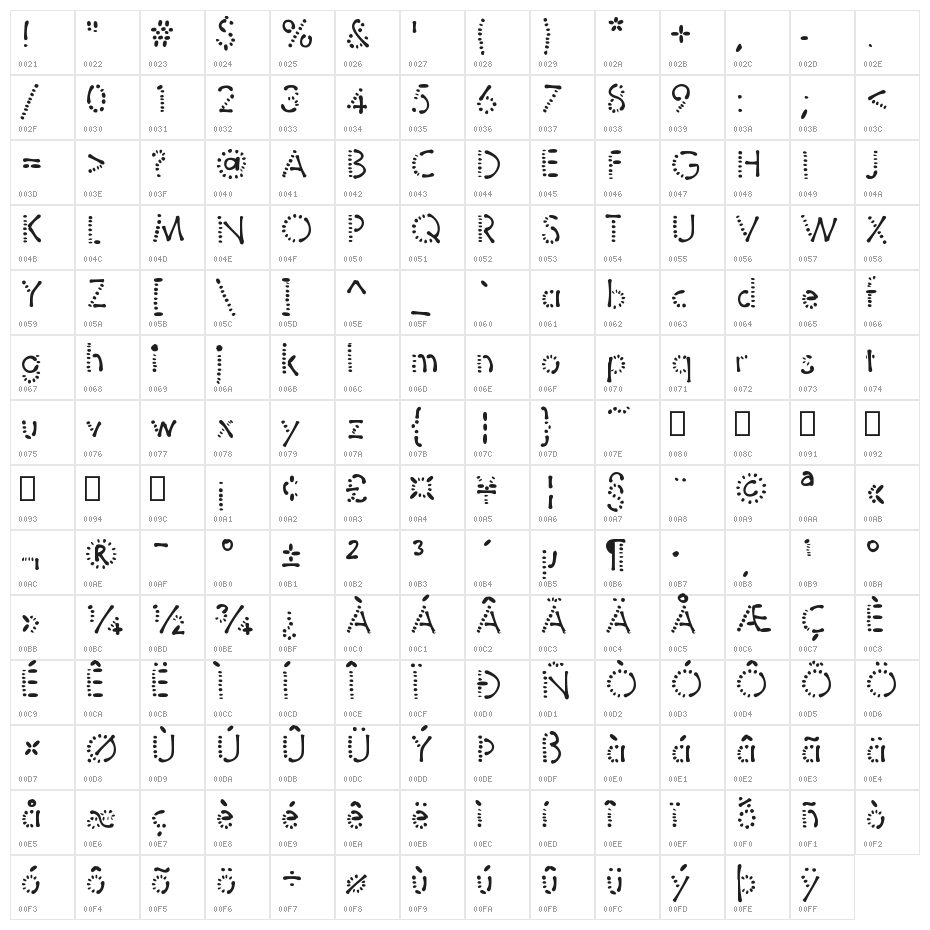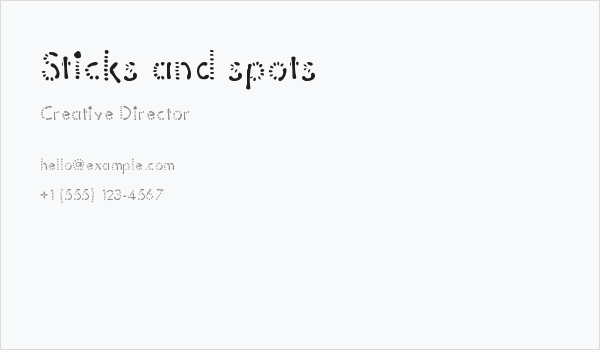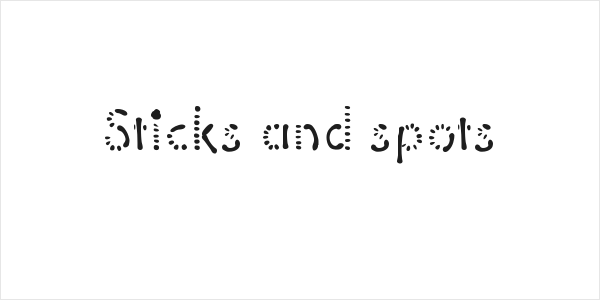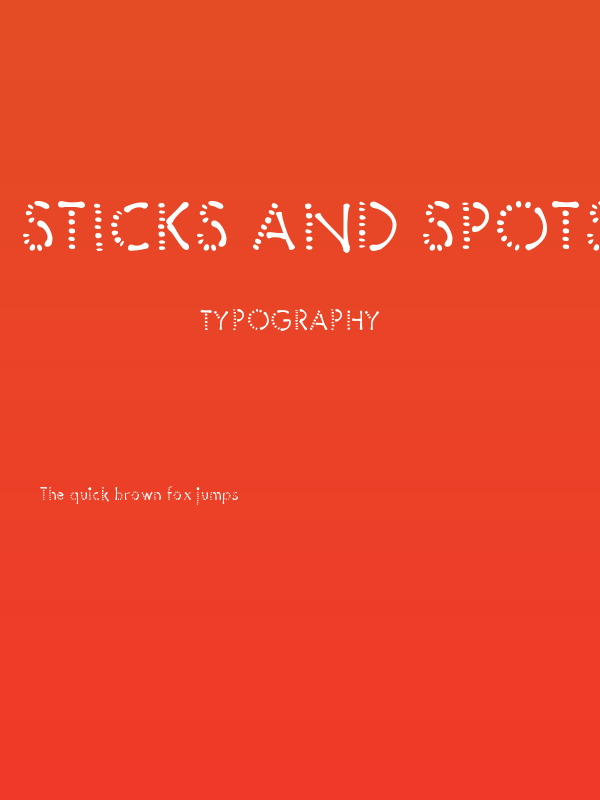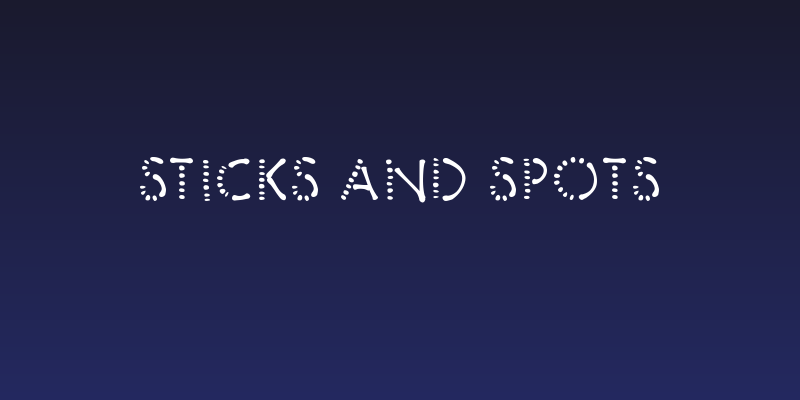
Sticks and spots Font
Sticks and spots Description
This playful and whimsical font features a unique design where each character is composed of a combination of solid lines and dotted patterns. The uppercase and lowercase letters, as well as numbers and special characters, exhibit a consistent style that blends traditional letterforms with a creative twist. The dotted elements add a sense of movement and rhythm, making the font visually engaging. Its distinct appearance makes it suitable for projects that require a fun and informal touch. The font maintains readability while offering a decorative flair, making it ideal for creative and artistic applications.
Use CaseHeadlines, Logos, Creative projects
Proposed ProjectsIdeal for children's books, playful branding, party invitations, and creative posters.